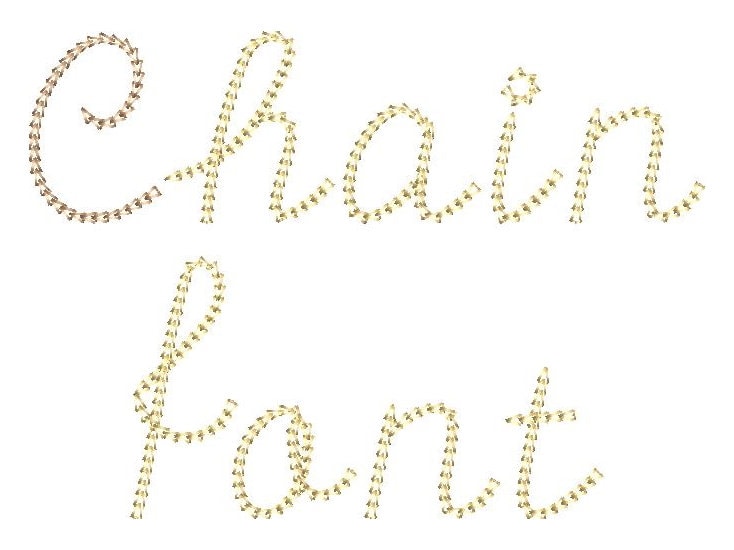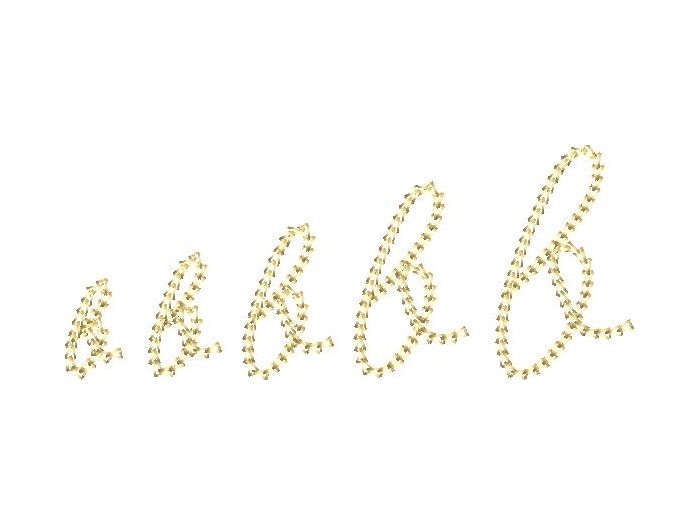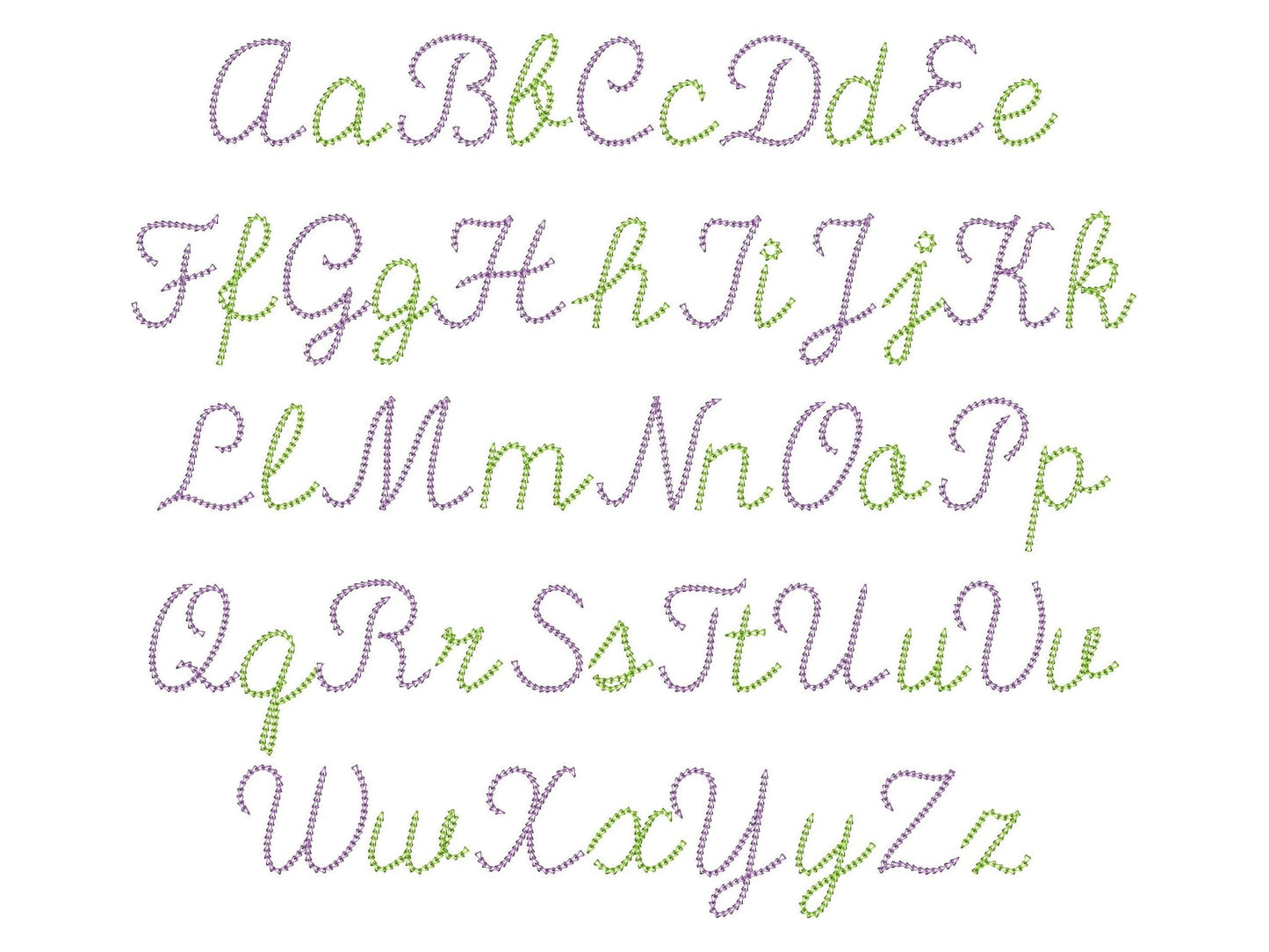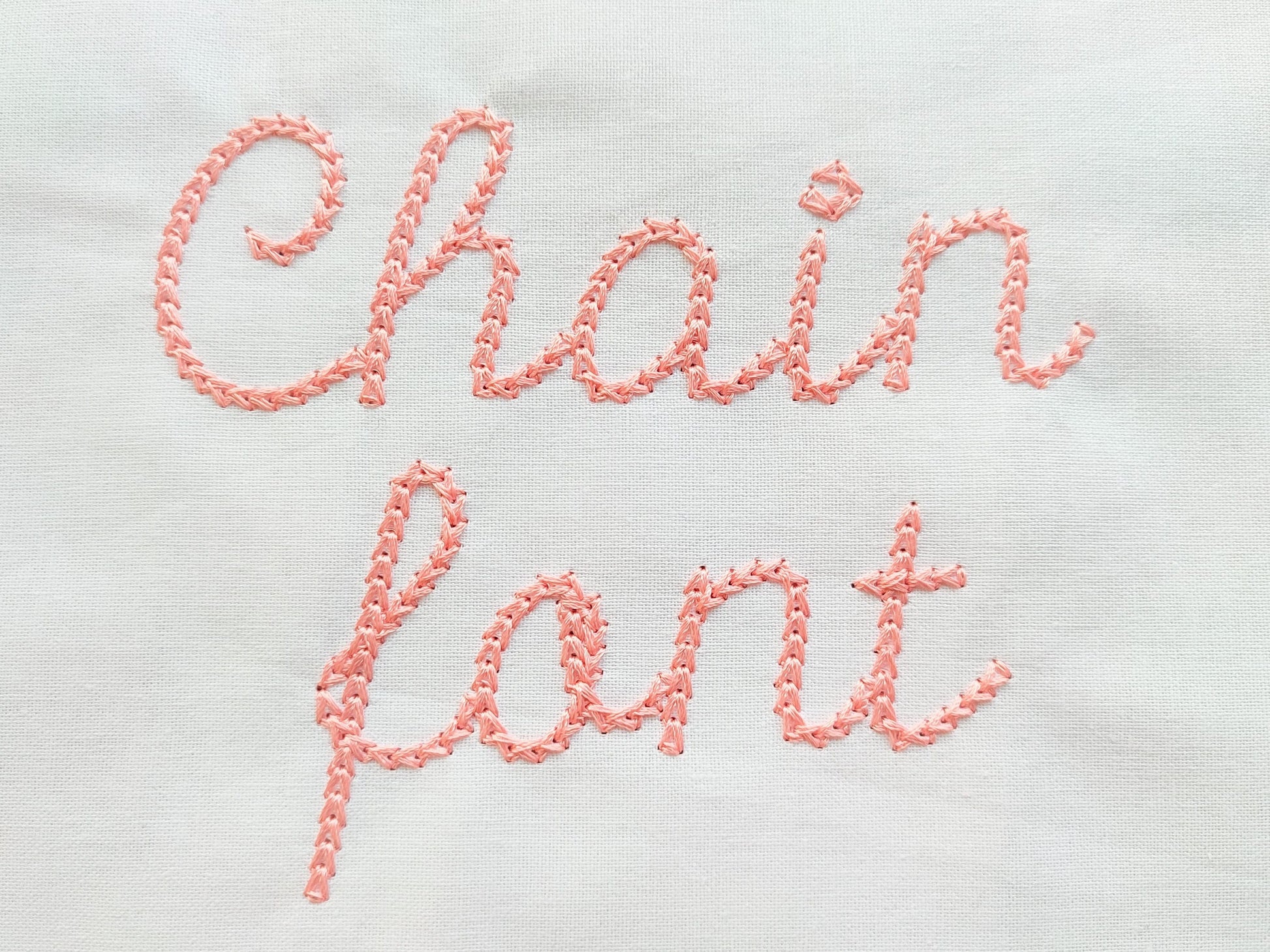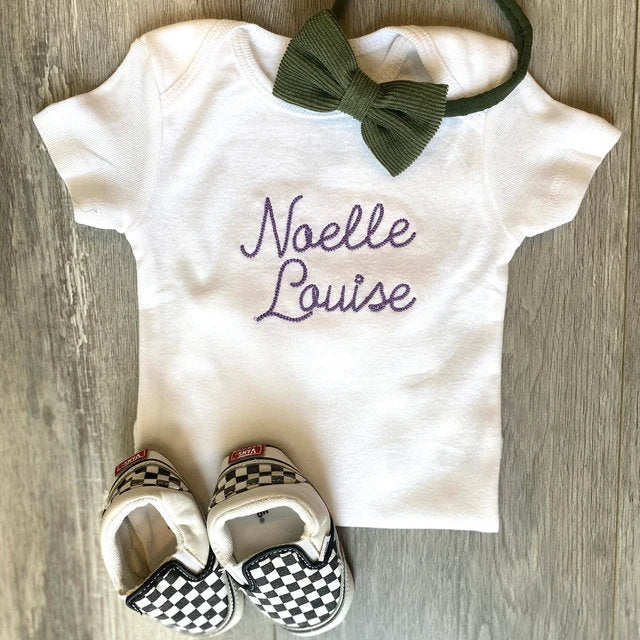
easy to use, stitches well, perfect for custom bandana
stitched out wonderfully! loved it!
Font is really thick but really cute, can only do words with limited letters because of 4x4 hoop but really cute!
Stitched out well, love it!
This is so pretty to use with tone on tone
Perfect stitch out every time!!
This is a good stitch
great design. stitched nicely. Thank you!
Stitched out beautifully, easy to use!
Easy to use and gives the embroidery effect I was hoping for!
This font stitched out beautifully 😍
I love this stitch and it sewed out great.
this font was fantastic !!! exactly as described
Really like this font! Loops that make up chain stitched out a lil bigger for me than pictured
Stitched out beautifully! Was just what I wanted for embellishing my daughter-in-laws sweatshirt!
Easy download and sewed nice!
Digital download was fast and the font stitched out beautifully!
This font stitched out great.
Perfect. Stitches great. Met my expectation!
The font is great and it stitches nicely. There are some letters such as a lower case "r" and "h" that need to be adjusted imho, for instance, "r" is shorter than the rest of the letters, and "h" has weird "tail" that doesn't connect well with some of the letters, but beside that everything is great.
Stitched out beautifully!! I can't wait to do more with it.
Beautiful font! Easy to install.
Loved this font ! It looks fantastic !
Stitched very well. Best first large letters.